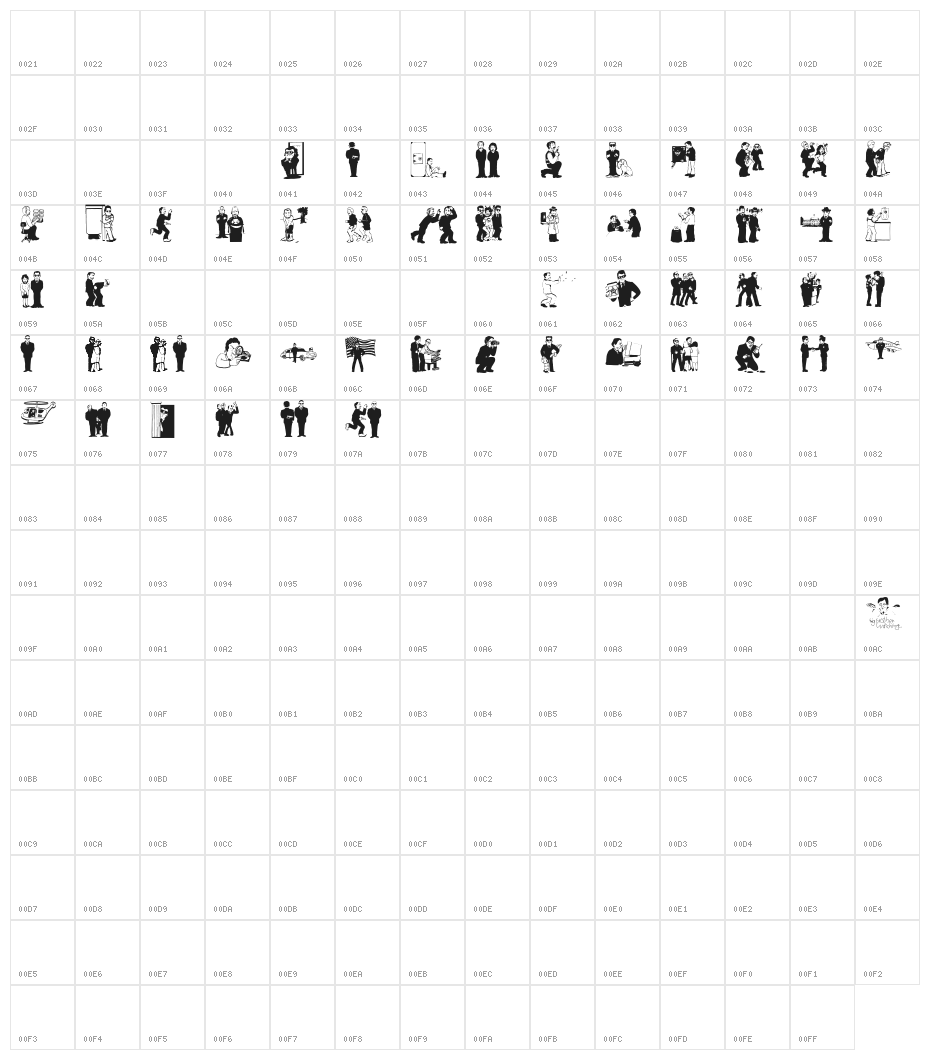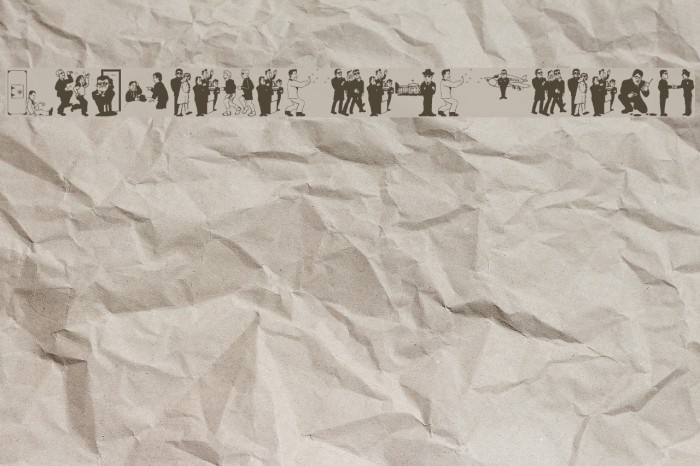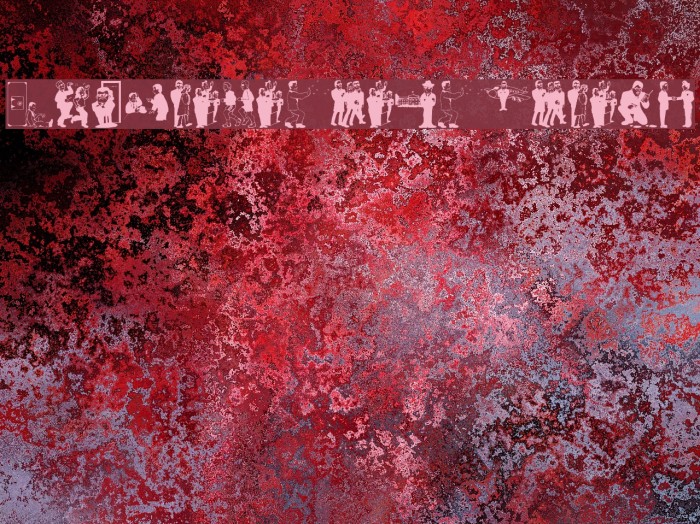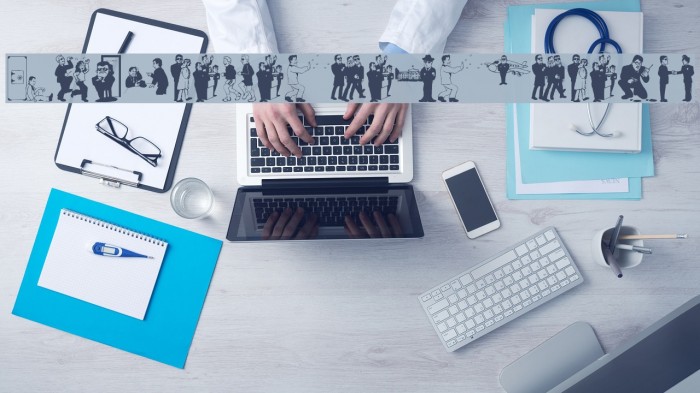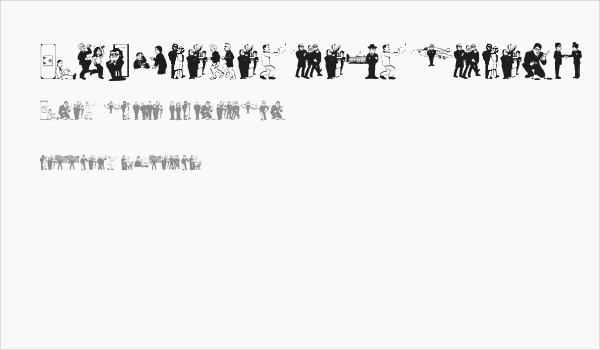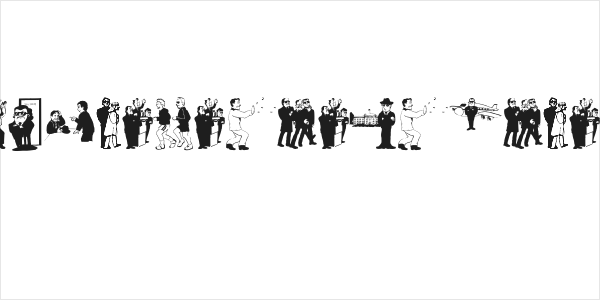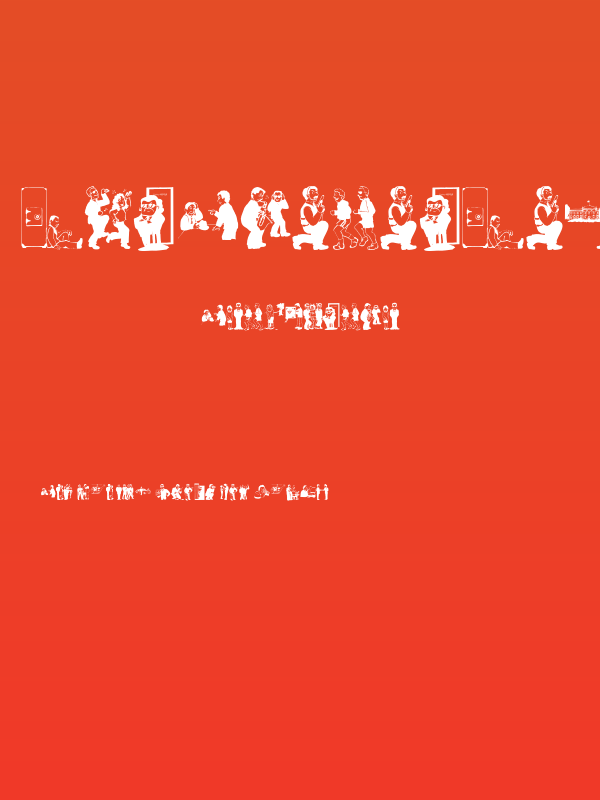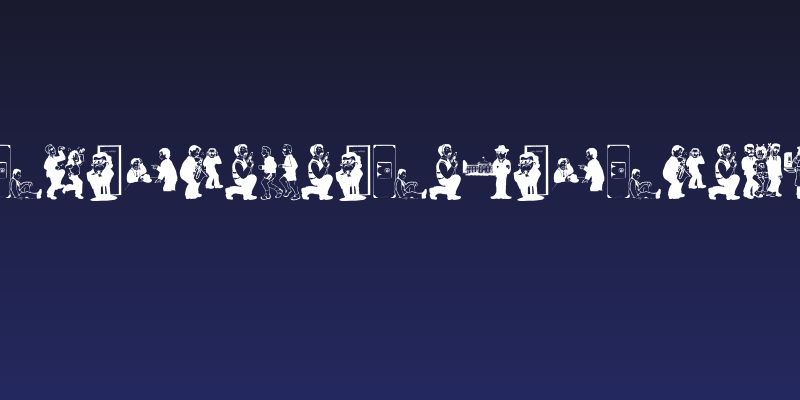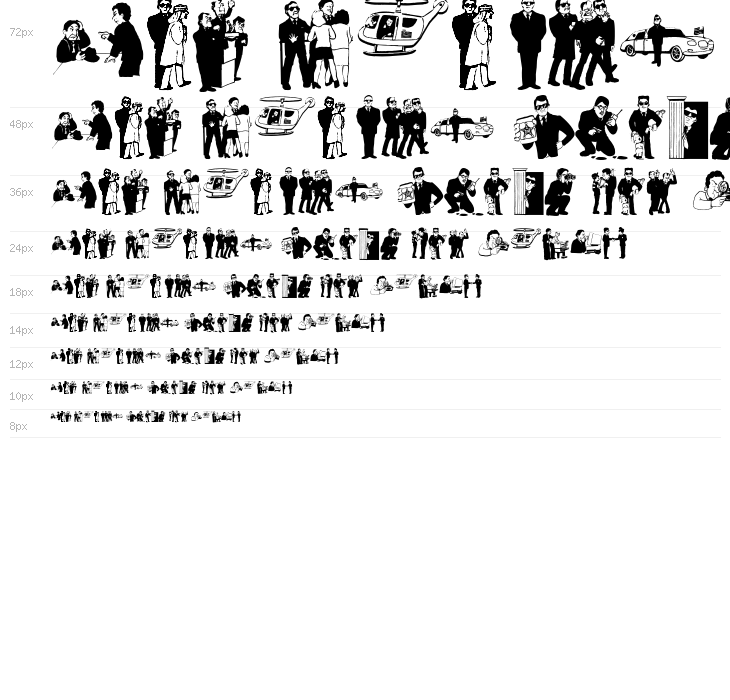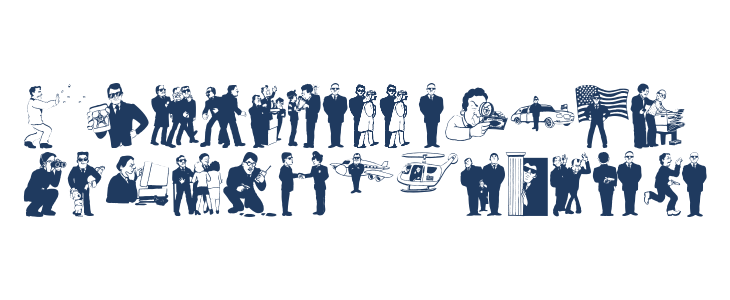
CIAThePeaceWatchers Font
CIAThePeaceWatchers Description
A highly detailed pictorial font where each character is represented by a unique cartoon-style illustration of people in various investigative, official, or secretive scenarios, rendered in black and white with strong outlines and expressive poses.
| Overall Style | Decorative, Comic, Thematic |
| Use Case | Headlines, Posters, Themed graphics, Educational visuals |
| Proposed Projects | Editorial illustrations, themed posters, comic titles, novelty event invitations, educational materials about security or espionage. |